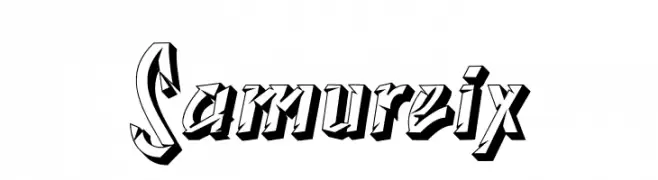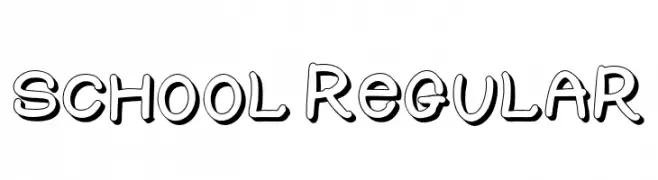
A bold, 3D-effect font with sharp angles and a graffiti-inspired style.
An elegant, flowing script font with delicate, continuous strokes.
A playful and whimsical handwritten script font with dynamic curves.
A modern, geometric font with clean lines and a minimalistic style.
An elegant and flowing script font with smooth, cursive strokes.
A playful, hand-drawn font with a 3D shadow effect, ideal for fun and engaging designs.
A bold, playful handwritten font with expressive strokes.
A bold, textured, hand-drawn font with a brush-like appearance.
A playful, handwritten font with smooth, rounded strokes and a casual feel.
A fluid, cursive script font with interconnected strokes and a handwritten feel.